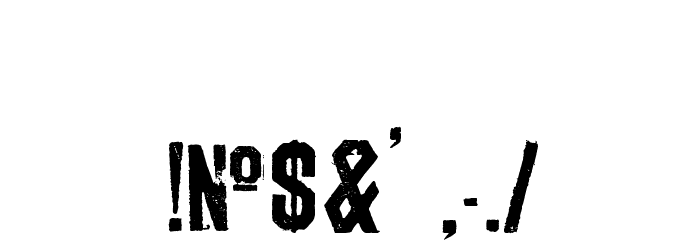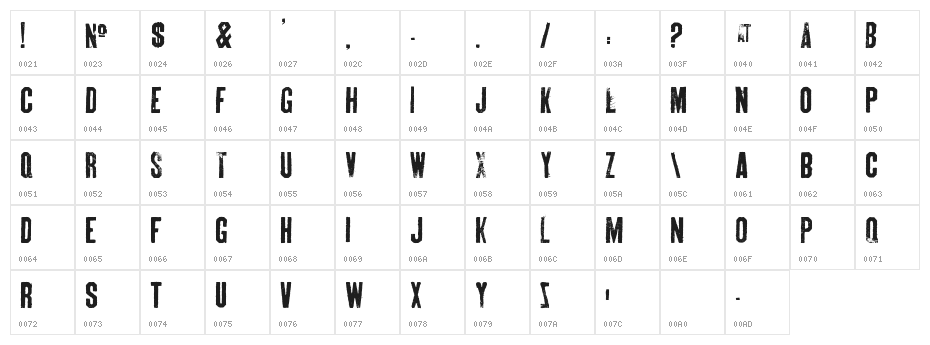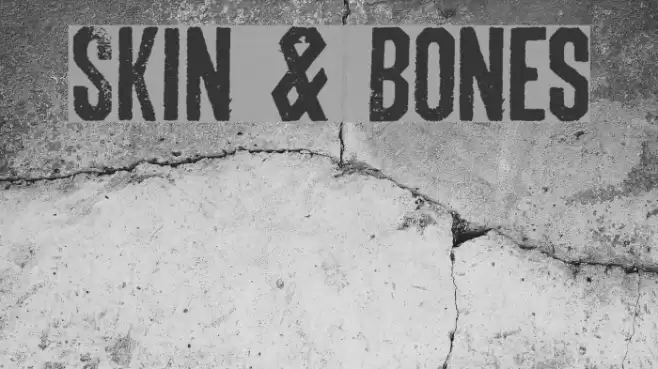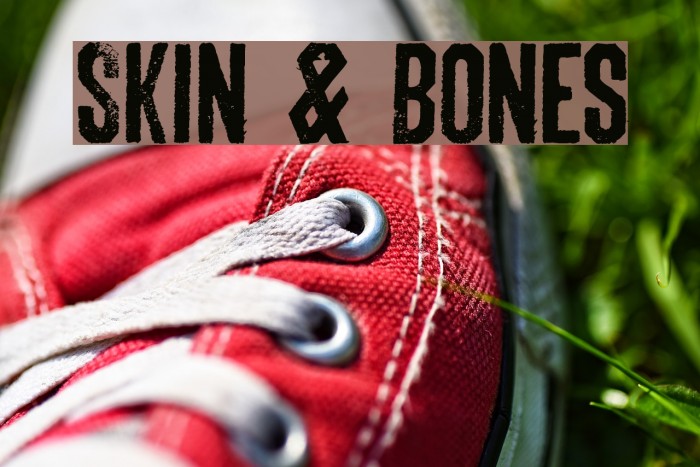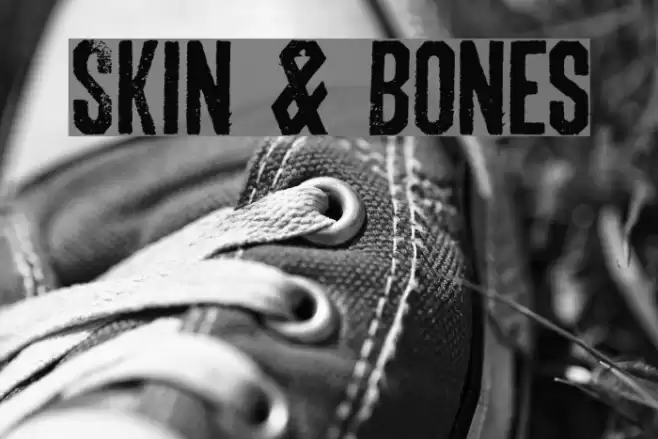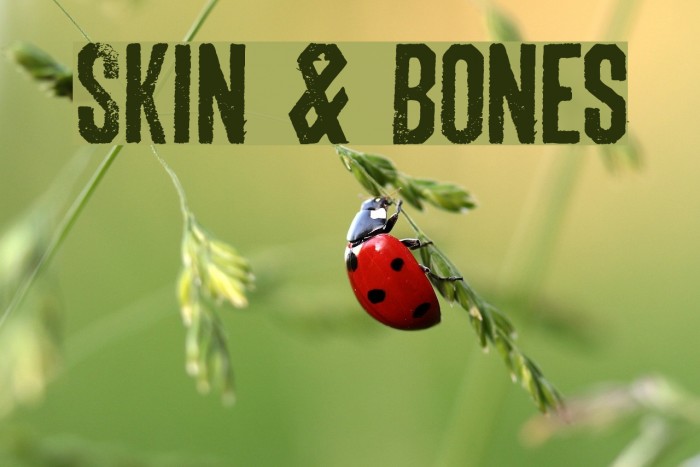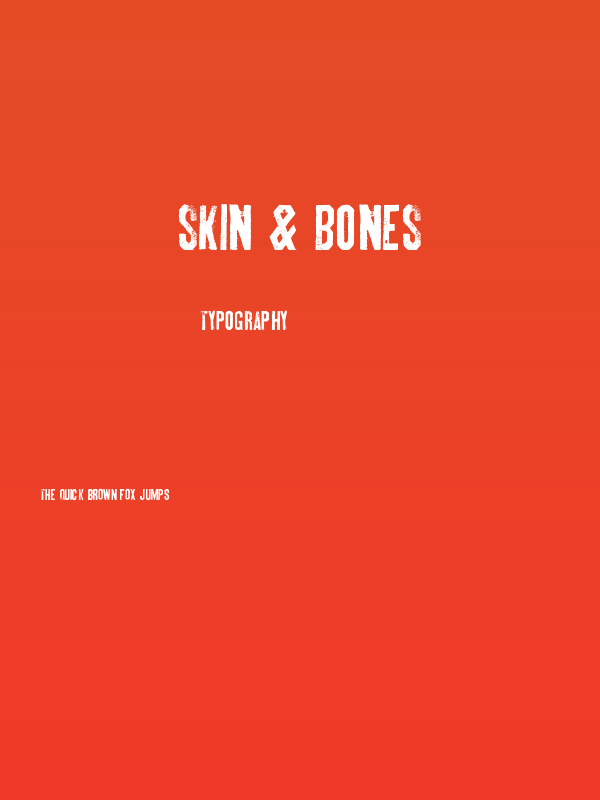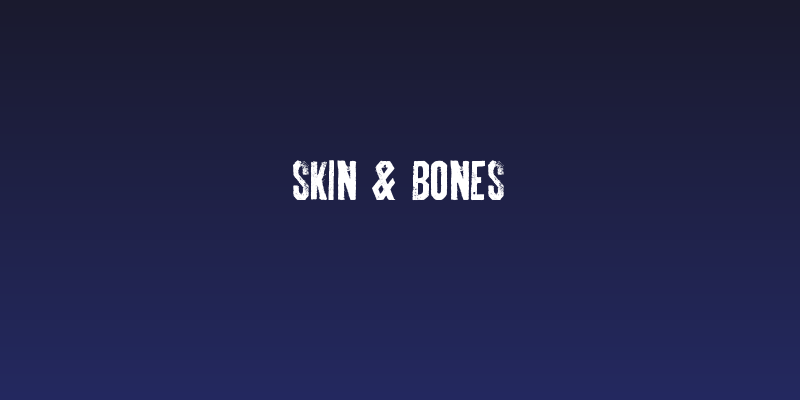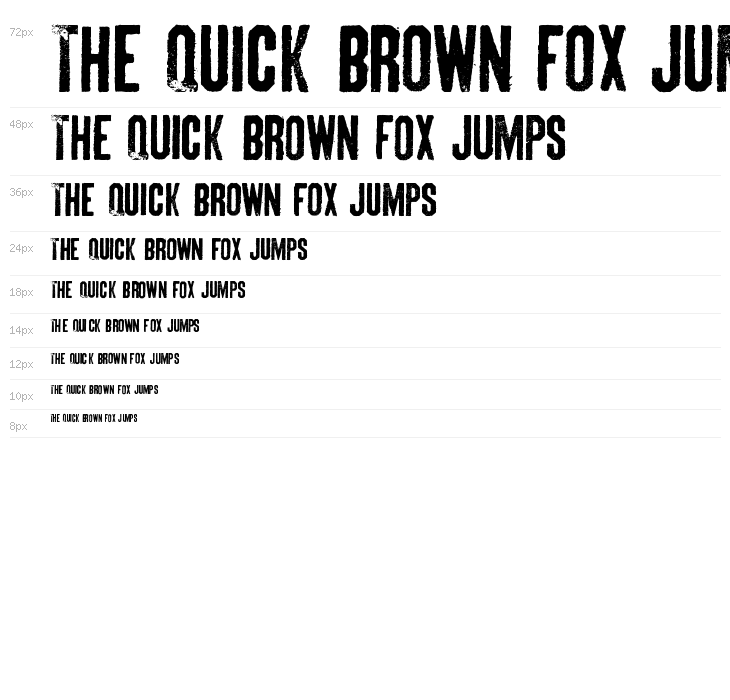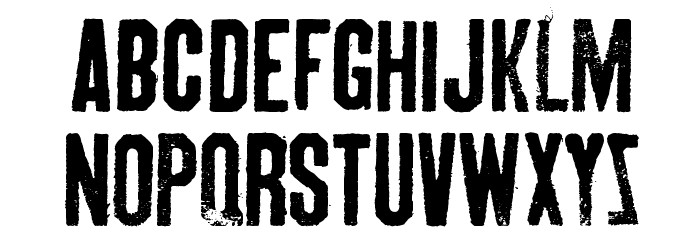
Skin & Bones Font
Skin & Bones Description
This font features a distressed, grunge style with a bold and impactful appearance. The characters are uppercase and exhibit a rough, textured look, giving them a worn and rugged feel. The edges are irregular, adding to the overall distressed aesthetic. This font is ideal for projects that require a bold statement with a touch of edginess. The characters are evenly spaced, ensuring readability while maintaining the unique style. The font's design is perfect for creating eye-catching headlines, posters, and branding materials that need a strong visual impact.
| Overall Style | Grunge, Distressed |
| Proposed Projects | Ideal for posters, album covers, branding, and any design needing a bold, edgy look. |